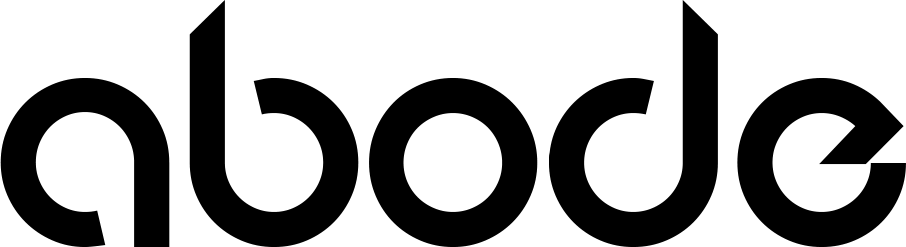
You can not skip an elegant and round font like this Abode font. Lowercase letters can be seen in the characters, but there are no uppercase letters, so you can design one of your attractive projects, such as posters, and science fiction flyers, along with many other fonts that support uppercase letters.
This typography font will be one of the best choices in designing astronomical presentations to raise your sales.